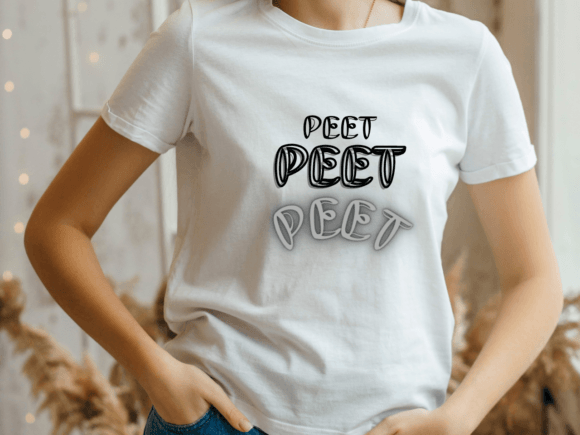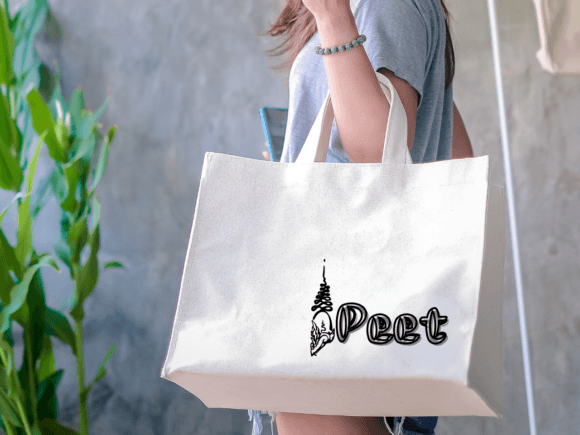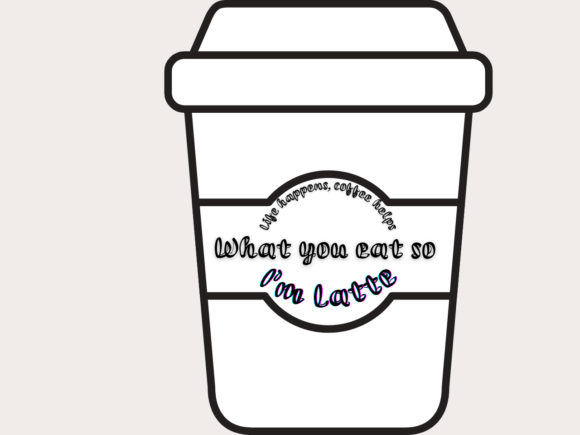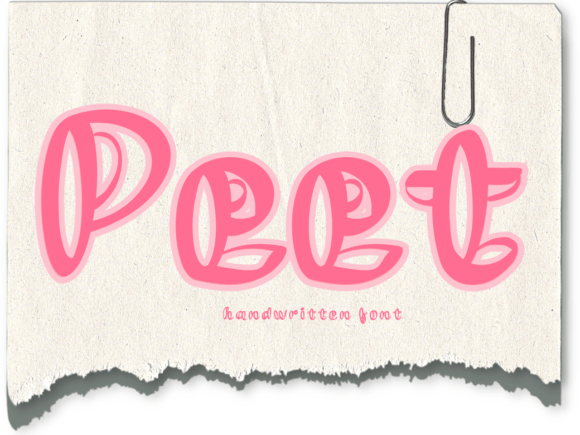
Introduction to Peet Font
Peet is a cute and quirky handwritten font.
👤 Author Pukka De
It will add an incredibly joyful touch to your designs Add this beautiful font to each of your creative ideas and notice how it makes them stand out.
Key Features of Peet Font
Why Choose Peet Font?
Peet Font offers exceptional quality and versatility, making it a valuable addition to your design toolkit. Whether you’re creating for personal projects or commercial use, Peet Font delivers professional results.